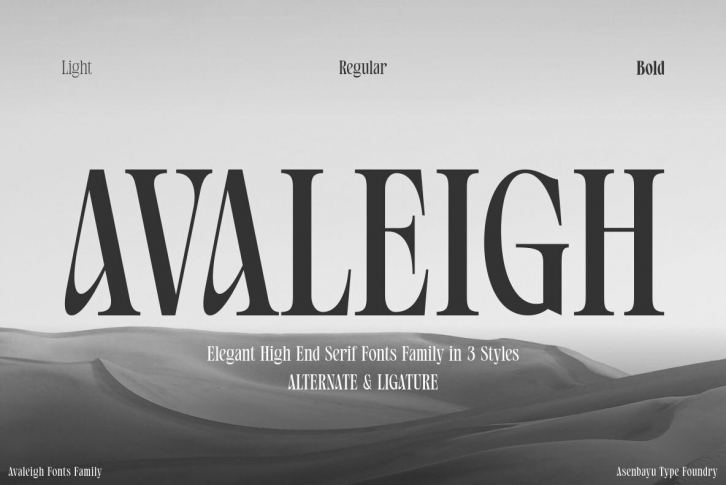
Avaleigh is a family of three different typefaces, each with their own style. These tall and narrow serifs have an impressive appearance that can be used for many purposes such as brand logos or headlines on products.